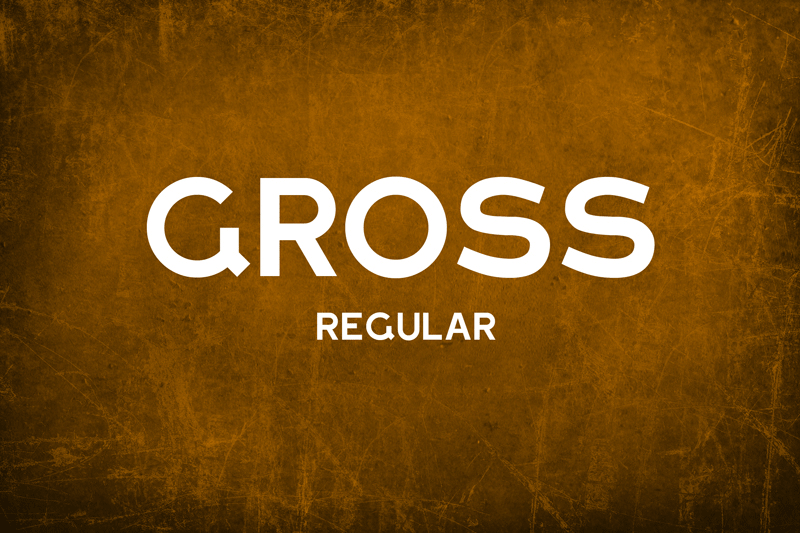
Font name: | Gross |
Author: | Marivo |
Note by Marivo | |
Gross regular is part of typographic restoration project LLTT. Original sign is situated in city Opatija, Croatia. More about the project you can find on LongLiveTheType(dot)com Font is free for personal or commercial use. Feel free to e-mail me back your comments and the font use. Enjoy! Marko Jovanovac marko.jovanovac(at)gmail(dot)com www(dot)longlivethetype(dot)com |